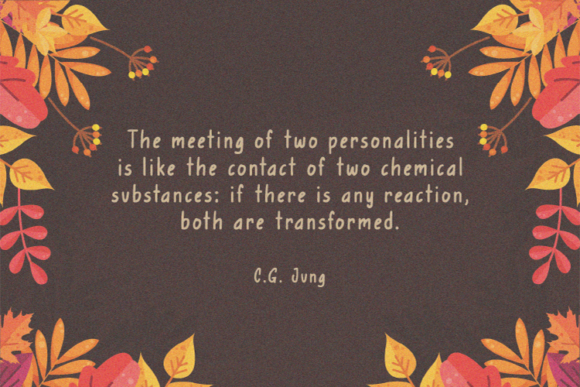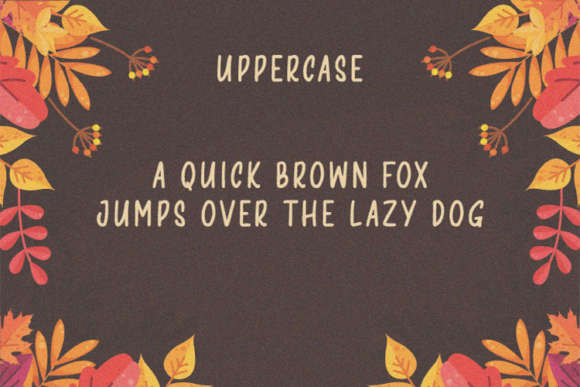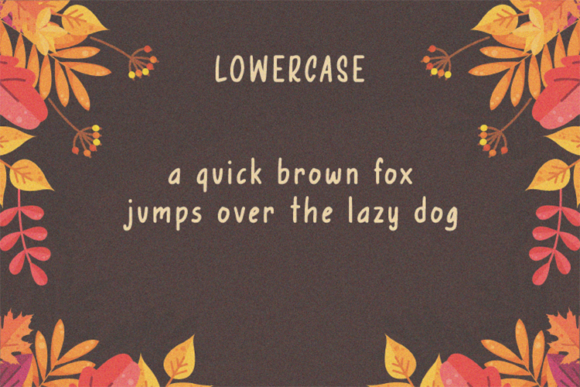
Loventif Diary Font
About Loventif Diary Font
Loventif Diary is a beautiful and attractive handwritten font. The curves in each arrangement make it unique and look natural. It also looks good when used as quotes, diaries, books, posters, and invitations.